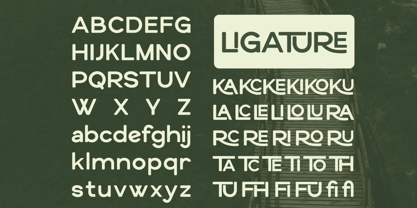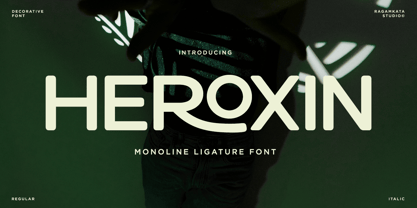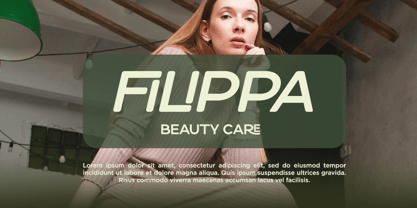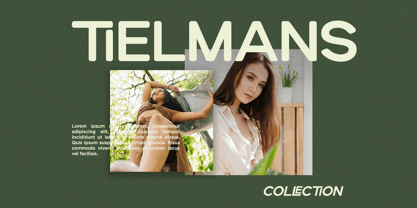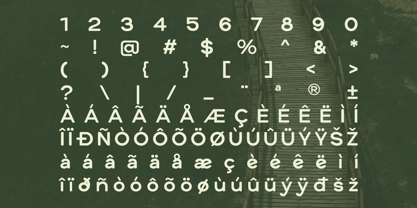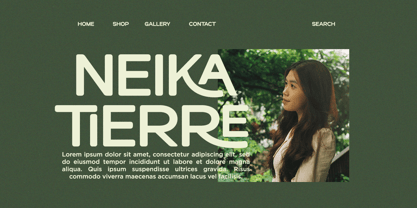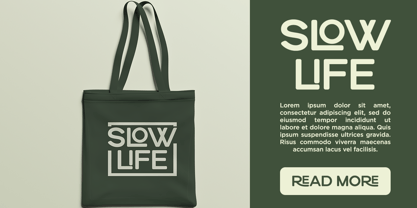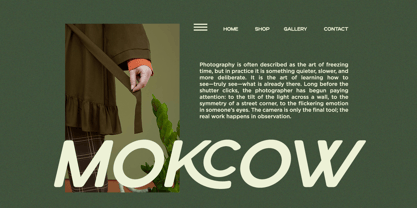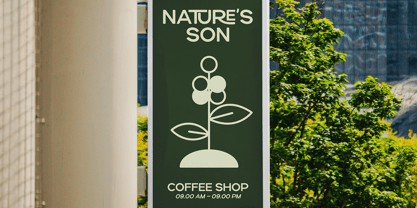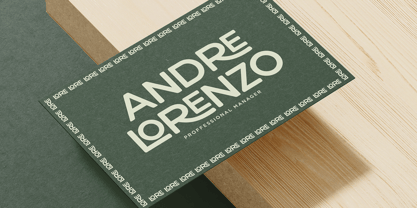
Heroxin
by RagamKata
The Heroxin Font Family was designed by Yogiswhara Dio Prakoso Riadi and published by RagamKata. Heroxin contains 2 styles and family package options. More about this family
Heroxin is a whimsical monoline ligature typeface that captures the gentle magic of a winter wonderland. It blends playful curves with graceful flow to create a warm, enchanting visual experience. Inspired by the beauty of falling snow, cozy holiday moments, and joyful seasonal celebrations, Heroxin infuses charm, wonder, and lighthearted elegance into every design it enhances. Its smooth monoline strokes and meticulously crafted ligatures provide a unique handwritten feel, making each word lively, expressive, and full of personality. Designed to elevate your holiday and seasonal creations, Heroxin is perfect for greeting cards, festive invitations, social media graphics, gift tags, packaging, brand promotions, event posters, and cheerful digital content. Whether you're crafting cozy winter branding, heartwarming Christmas campaigns, playful New Year visuals, or dreamy seasonal storytelling, Heroxin ensures your designs stand out with warmth, softness, and delightful character. With its friendly structure and decorative ligatures, Heroxin offers both beauty and versatility, allowing designers to create eye-catching headlines, charming logotypes, and engaging typographic compositions. This typeface transforms ordinary messages into memorable visual moments, making it an ideal choice for projects that aim to spread joy, emotion, and seasonal magic. Thanks, Have a wonderful day Ragamkata Studio